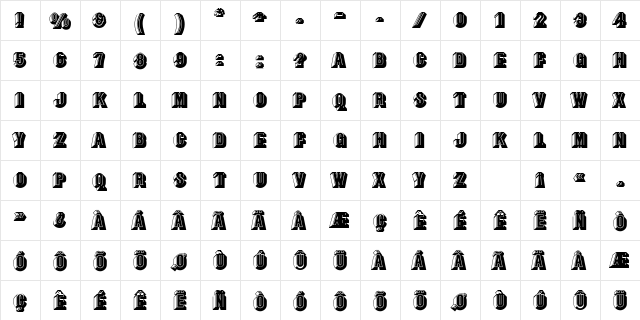
PT High Jack Normal
Design Context for PT High Jack Typeface
PT High Jack is a composed and adaptable typeface that performs quietly and consistently across a wide range of design contexts.